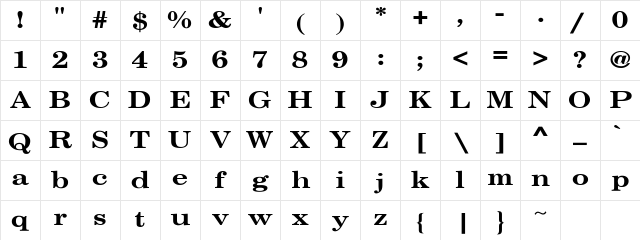
NewCenturySch 9 Regular
Design Context for NewCenturySch 9
NewCenturySch 9 is a composed and adaptable typeface that performs quietly and consistently across a wide range of design contexts.
Pro Tip: Use NewCenturySch 9 in both headline and body roles to test its range before committing to a single application.